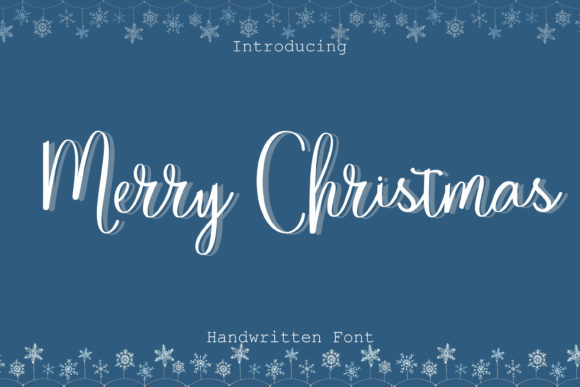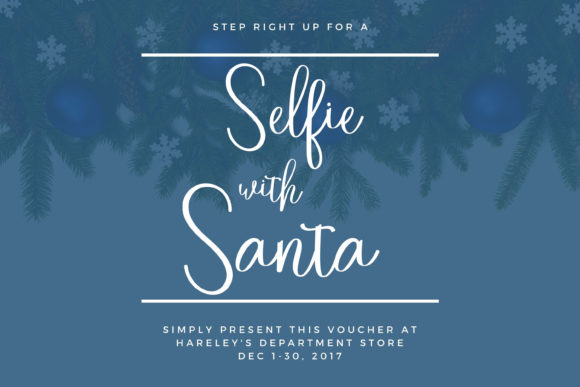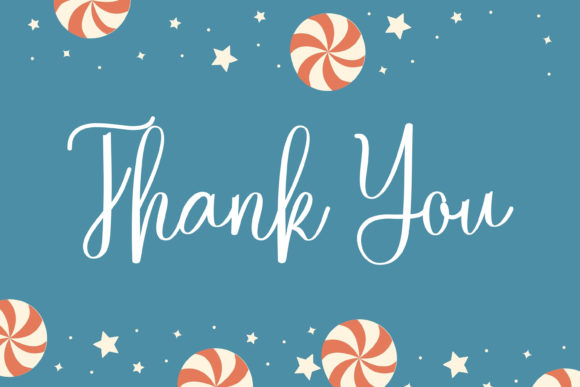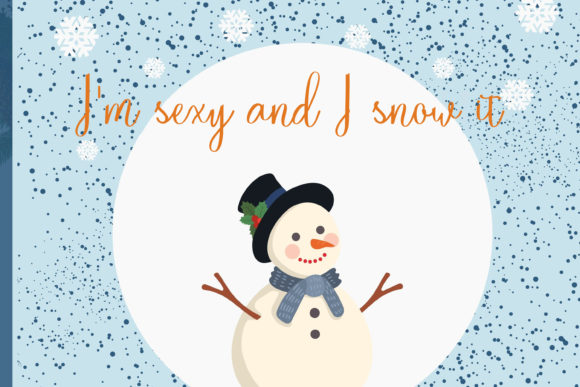
Merry Christmas Font
About Merry Christmas Font
Introducing “Merry Christmas,” a beautiful and flowing handwritten font crafted to add elegance and charm to your projects, especially those celebrating the festive season. Whether you’re creating wall displays, wedding invitations, social media post logos, advertisements, product packaging, labels, photography, watermarks, invitations, stationery, or any project that requires impressive typography, Merry Christmas offers a versatile and stylish option.
With its graceful strokes and flowing curves, Merry Christmas brings a touch of warmth and festivity to any design. Its handwritten style exudes holiday cheer and personality, making it perfect for adding a festive and personal touch to your projects during the Christmas season.
Experience the beauty and versatility of Merry Christmas and watch as it transforms your designs into captivating works of art. Whether you’re a professional designer or a passionate enthusiast, this font invites you to explore new possibilities and express yourself with confidence and style.
Unlock the full potential of your Christmas-themed designs with Merry Christmas and let its beautiful handwritten font elevate your projects to new heights. With its flowing elegance and festive charm, Merry Christmas is sure to become a beloved addition to your holiday design toolkit, inspiring creativity and joy with every use.